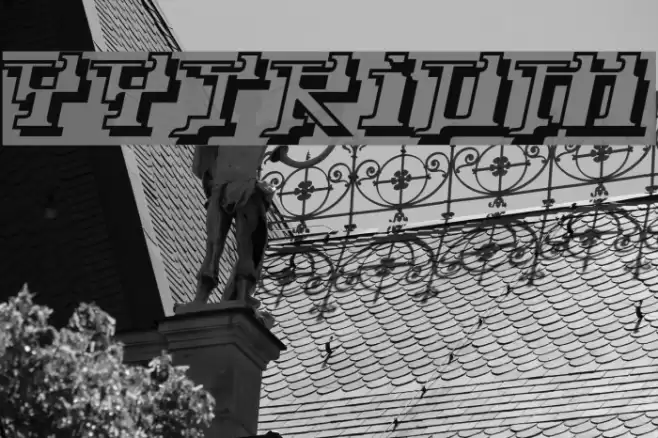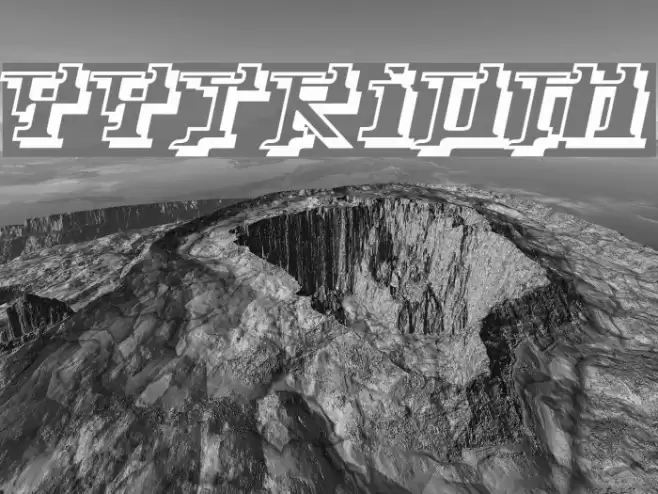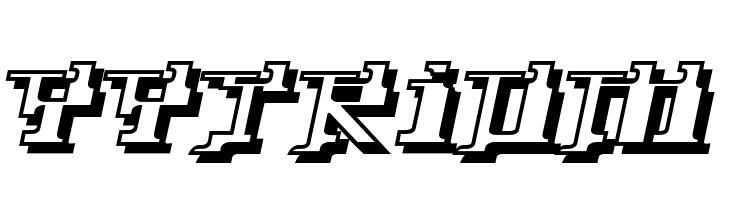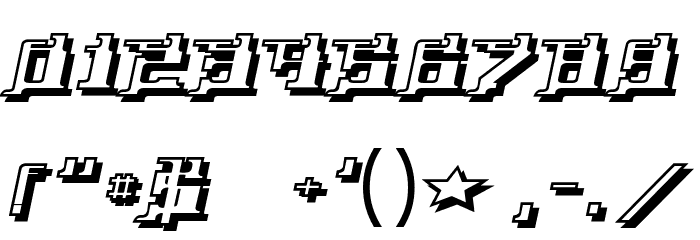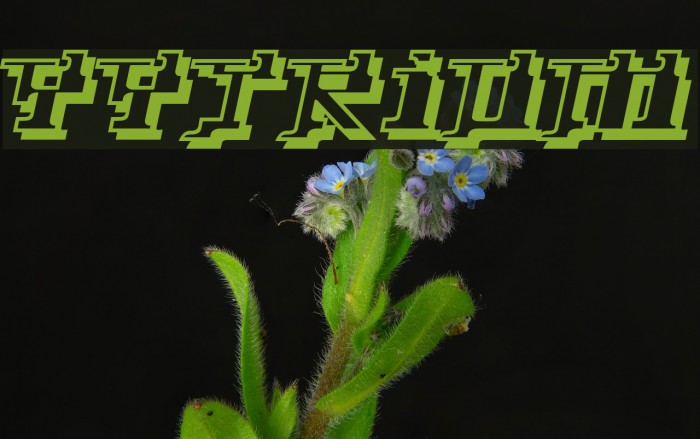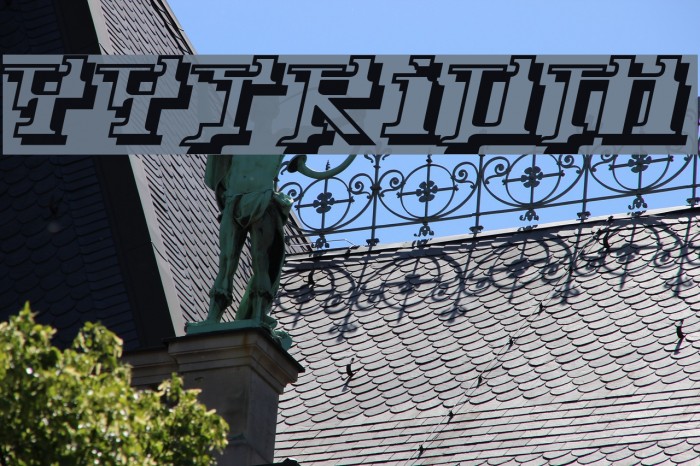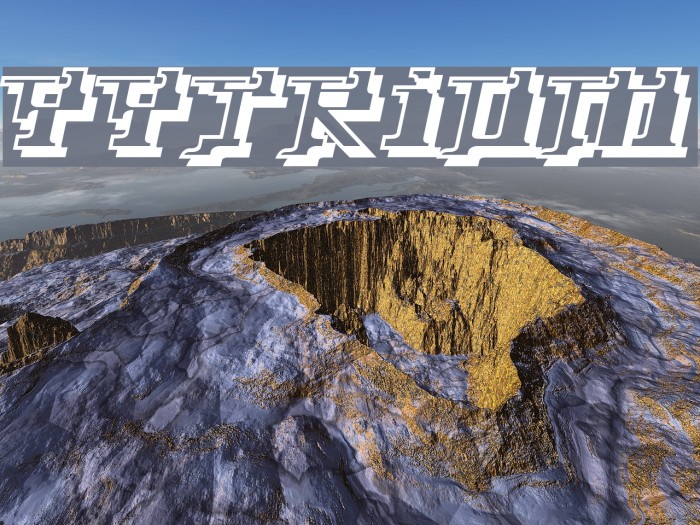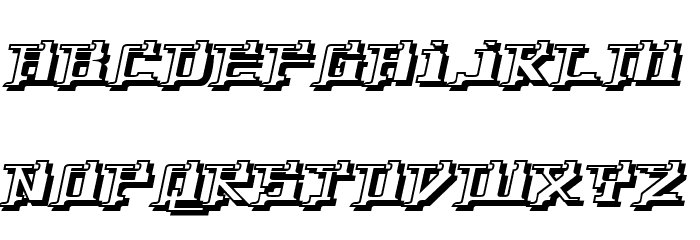
Yytrium Font
Yytrium Description
This font features a bold, dynamic style with a three-dimensional effect, giving it a striking and impactful appearance. The letters are designed with sharp angles and a shadow that enhances the 3D illusion, making each character stand out prominently. The uppercase and lowercase letters maintain a consistent style, with a slight slant that adds to the energetic feel of the font. The numbers and special characters are crafted with the same attention to detail, ensuring a cohesive look across all elements. This font's unique design is ideal for projects that require a bold statement and a modern, edgy aesthetic.
A bold, 3D-effect font with sharp angles and a dynamic style from Futuristic fonts.